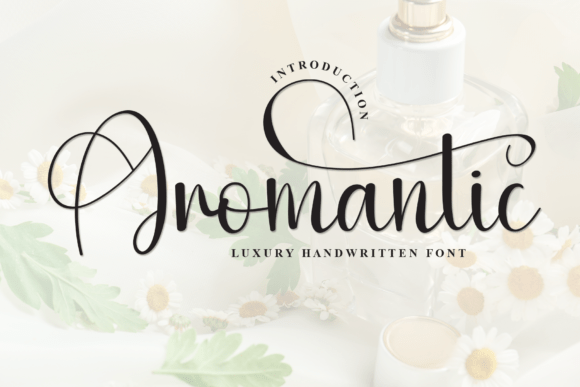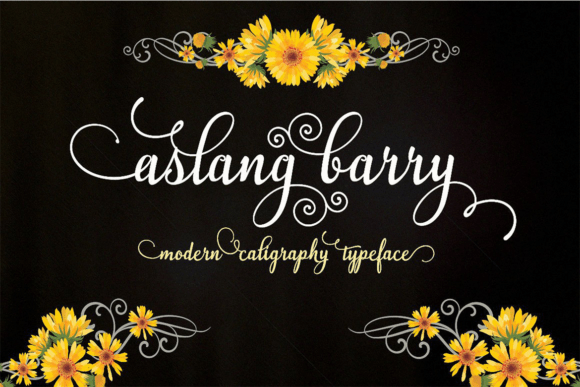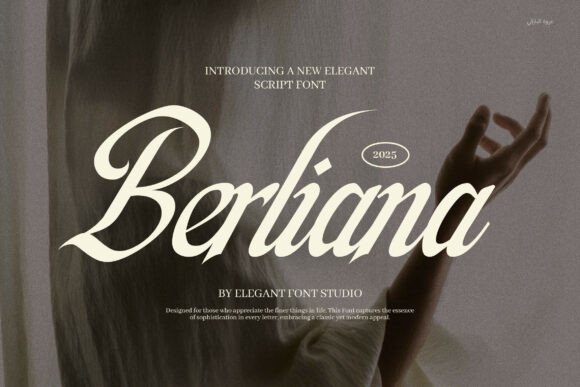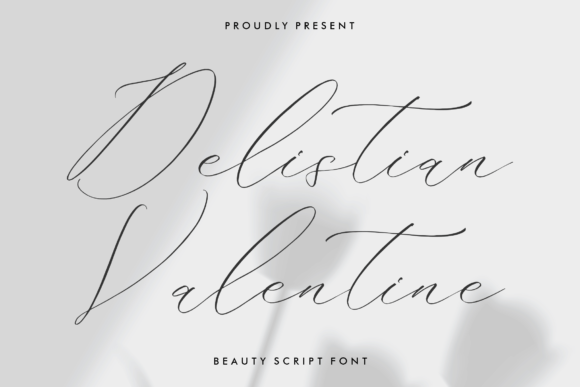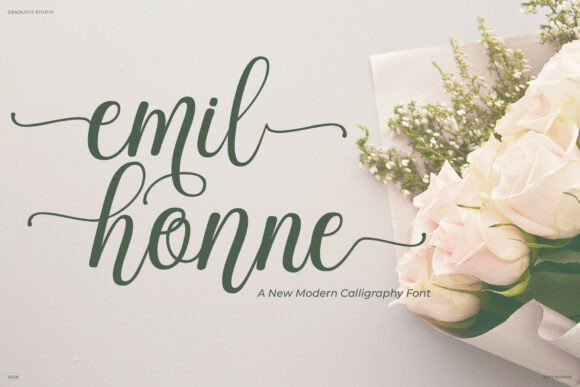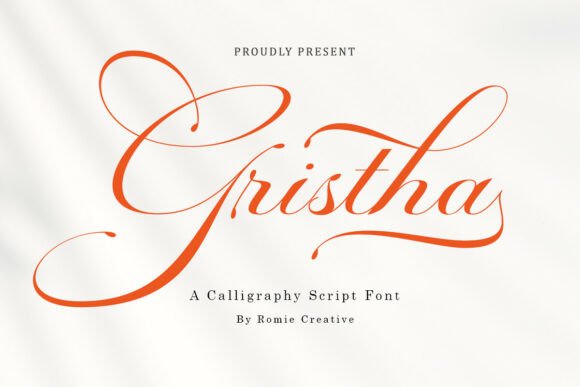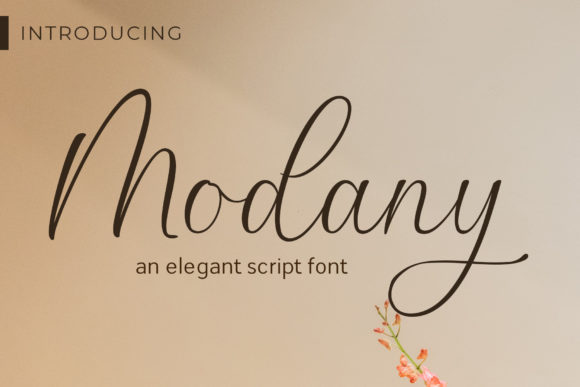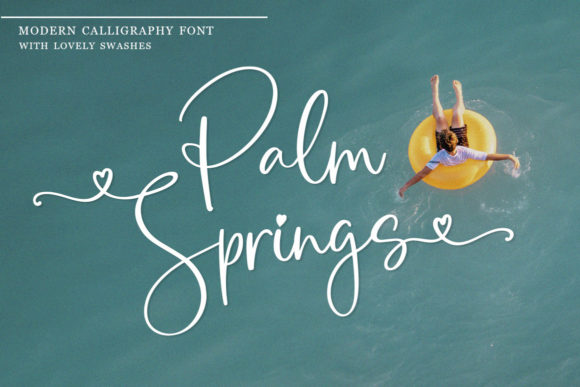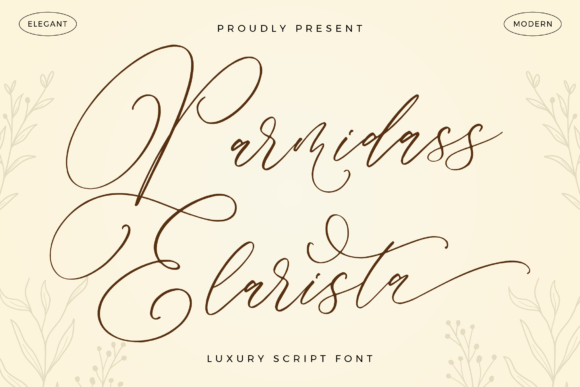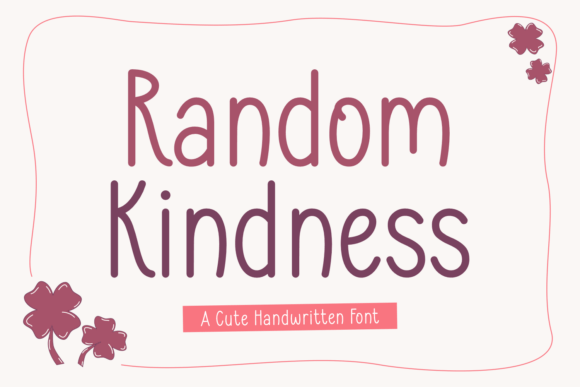
Modern Script Fonts in 2026: 19 Gorgeous Handwritten Styles Worth Buying
If you are new to buying type, scripts are the easiest place to make an expensive-looking mistake. So before the picks, a short primer: here is what separates 19 modern script fonts that read clean and current from the dated ones, plus the errors that trip people up. For context, it helps to know how the script typeface developed in the first place.
What makes modern script fonts feel current
Three things, mostly. Even or only-slightly-contrasted strokes instead of dramatic hairlines; restrained flourishes rather than swashes on every letter; and proportions that sit closer to everyday handwriting than to formal copperplate. Older scripts pile on ornament; modern ones trust the rhythm of the hand and leave space. That is why a monoline script can look more contemporary than a far fancier one.
Common mistakes with script fonts
Almost every script problem comes down to one of these:
• Setting a fine script too small, so the connectors break apart
• Tracking the letters out, which snaps the joins between them
• Using a script for a whole paragraph instead of one short line
• Forgetting to swap in alternates where the same letter repeats
Clean and monoline picks
Even-weight, pared-back scripts that hold up well and read modern. Strong choices for logos and small-format work.
Night Wednesday
Night Wednesday is an expressive script built on smooth, monolinear strokes, meaning the line weight stays fairly even throughout. That consistency gives it a clean, modern look while keeping the flow of handwriting. The mood is calm and a little moody, well suited to fashion, music, or lifestyle branding after something understated. Because the strokes are even, it reads more clearly at smaller sizes than high-contrast scripts. Pair it with a minimal sans and a dark palette, and use it for short headlines and signatures where its steady rhythm shows.
Melorine Script
Melorine Script is a smooth handwritten face with gentle curves and a soft, feminine feel that reads as effortless and natural. It avoids heavy ornamentation, so it suits modern beauty branding, packaging, and warm editorial accents. The relaxed strokes give short phrases a genuine, jotted-by-hand quality. Pair it with a clean sans and a soft palette, keeping the script for names and headlines. Because it stays fairly even in weight, it’s a touch more legible at smaller sizes than the hairline scripts, though larger settings still flatter it most.
Amanah Guru
Amanah Guru is a refined handwritten face that keeps an approachable, natural feel, with delicate strokes that read as genuine rather than overly styled. It sits comfortably between calligraphy and everyday handwriting, which makes it flexible for branding, packaging, and editorial accents. The relaxed rhythm suits a modern label that wants warmth without formality. Pair it with a clean sans for body copy and let the script handle the personal touches. It holds together a little better at smaller sizes than the hairline scripts, though headlines still suit it best.
Aromantic (Iromantic)
Aromantic, labeled Iromantic in its source, is an ultra-light luxury handwritten face built for a minimalist, premium feel. The fine strokes and restrained styling give short phrases a quiet, modern grace rather than heavy ornamentation. It suits high-end beauty branding, sparse editorial layouts, and digital headers where less is more. Because the strokes are slender, set it large and print it cleanly so they hold. Pair it with a minimal sans and plenty of white space, and reserve it for one short, important line.
Friday Calligraphy
Friday Calligraphy is a modern take on calligraphy, built with smooth curves, stylish swashes, and a clean, contemporary finish. It keeps the hand-lettered flow but trims the fussiness, which makes it easy to drop into current branding and social layouts. The swashes give names a graceful endpoint without overwhelming the rest. Pair it with a minimal sans for body copy and let the script carry the headline. It works in a wide range of projects, from logos to quote art, as long as you keep it to short, expressive lines.
Flowing and expressive picks
More movement and personality, still on the modern side of handwriting. Keep these for names, headlines and quote art.
The Mountaine
The Mountaine is a modern script with flowing curves and graceful letterforms that lean polished rather than playful. It reads as confident and current, a good fit for lifestyle brands, headlines, and quote prints. The connectors are smooth and consistent, so short phrases hold together cleanly. As with most scripts, I’d keep it for names and headings and pair it with a simple serif or sans for longer text. Set in a single tone with a little open spacing, it carries a modern, romantic feel without much fuss.
Emilhonne
Emilhonne is a modern calligraphy face that aims for a balance of polish and contemporary flair, with fluid, graceful strokes. It reads as sophisticated but current, a good match for fashion, beauty, and editorial work. The flow is smooth and the detailing restrained, which keeps it from tipping into old-fashioned territory. Pair it with a minimal serif or sans for the supporting text and reserve the script for short, important lines. In a single deep tone with open spacing, it gives a layout a refined, hand-lettered headline.
Romantic (Modern Script)
Romantic font preview
Romantic, in this newer script style, features sweeping ascenders and a delicate, fluid rhythm that reads as soft and current. The long extenders give short phrases an airy grace, so it suits beauty branding, quote prints, and invitation accents. Those ascenders need room, so keep line spacing open and reserve it for headlines rather than dense text. Pair it with a clean sans for contrast and a muted palette to play up its gentle mood. Set one short line large and let the sweeping strokes carry the page.
Gristha
Gristha font preview
Gristha is a fluid modern calligraphy script with a luxurious, confident flow and graceful, pen-drawn curves. It feels expressive without losing control, which makes it a strong headline face for branding, packaging, and editorial layouts. The smooth connectors suit short phrases and names, where the rhythm can be seen at a glance. Pair it with a minimal serif or sans for the details and keep the script as the accent. In a single rich tone with generous spacing, it reads as both artistic and grown-up.
Monadila
Monadila font preview
Monadila is a modern calligraphy face with delicate thin strokes and graceful, flowing swashes, blending classic polish with a current edge. The fine lines give it a refined, almost editorial quality, while the swashes add a hand-lettered finish to names. Because the strokes are slender, it prefers larger sizes and clean printing. Pair it with a clean sans for body copy and reserve the script for short headlines. Set in a soft palette with open spacing, it suits beauty branding, stationery, and quote prints with a modern romantic feel.
Berlina
Berlina font preview
Berlina is a luxurious, high-class script designed to bring polish and charm to branding and stationery. The strokes flow with a confident, slightly formal rhythm that reads as upscale rather than casual. It suits boutique logos, perfume packaging, and invitation headlines where a refined hand is the goal. As with most fine scripts, keep it to names and short lines and pair it with a clean serif or sans for the supporting text. In a single deep tone with open spacing, it gives a layout a grown-up, hand-lettered headline.
Aslang Barry
Aslang Barry font preview
Aslang Barry is a modern calligraphy typeface with a refined, graceful character and a smooth, flowing hand. It reads as sophisticated and current, a good fit for fashion, beauty, and lifestyle branding. The connectors are clean and consistent, so short phrases hold together well and names get a polished finish. Pair it with a minimal sans for body copy and reserve the script for headlines and signatures. In a single tone with a little extra spacing, it gives a layout a hand-lettered accent without feeling overdone.
Random Kindness
Random Kindness font preview
Random Kindness is a handwritten face that pairs sweet, casual charm with a touch of luxury, reading as warm but considered. The relaxed strokes feel genuine rather than overly styled, which suits modern branding, packaging, and friendly editorial accents. It sits on the approachable side of this list, so cheerful, short lines work better than formal wording. Pair it with a clean sans to match its easygoing tone, keeping the script for names and headlines. A soft palette and open spacing let its natural rhythm come through clearly.
Rolland Honey
Rolland Honey font preview
Rolland Honey is a modern calligraphy face that blends classic polish with a contemporary touch, with smooth, flowing strokes. It reads as warm and current, a comfortable fit for lifestyle brands, packaging, and quote prints. The connectors are clean and the detailing restrained, which keeps it modern rather than ornate. Pair it with a minimal serif or sans for the supporting text and reserve the script for short headlines and names. In a soft, warm palette with open spacing, it gives a layout a friendly, hand-lettered headline.
Parmidass Elarista
Parmidass Elarista font preview
Parmidass Elarista is an expressive handwritten face with a wide range of uses, from greeting cards to headlines and branding. The strokes have a relaxed, natural rhythm that reads as genuine, with enough flair to carry a short phrase on its own. Its flexibility is the appeal, since it moves easily between playful and polished depending on the layout. Pair it with a clean sans for body copy and reserve the script for the lines that matter most. Keep spacing open so the connectors and extenders have room to read.
Delistian Valentine
Delistian Valentine font preview
Delistian Valentine is a charming script-and-handwritten face with delicate strokes and lovingly drawn curves. The warmth in its rhythm makes it a natural for cards, gift tags, and romantic branding, though it works for any soft, friendly project. The hand-drawn quality is the point, so keep it to short phrases and let a plain face carry longer text. Pair it with a simple serif and a warm palette for a tender, cohesive look. A little extra line spacing keeps its loops and connectors from crowding each other.
Rathallod
Rathallod font preview
Rathallod is a modern, stylish script with smooth, flowing curves and delicate hairlines that give it a graceful, calligraphic feel. The fine detailing reads as refined and current, suiting fashion, beauty, and editorial work. Because the hairlines are slender, it prefers larger sizes and clean printing where they stay crisp. Pair it with a minimal sans for the details and reserve the script for short headlines and names. In a single tone with open spacing, it gives a layout a hand-lettered accent without much else on the page.
Palm Springs
Palm Springs font preview
Palm Springs is a romantic modern calligraphy face with letters that dance lightly along the baseline and a casual yet polished touch. The relaxed rhythm gives it an easygoing, sunny personality that suits lifestyle branding, packaging, and quote art. It leans friendly, so short, warm lines work better than formal wording. Pair it with a clean sans to match its modern feel, keeping the script for names and headlines. A soft, bright palette and open spacing let its lively rhythm read clearly without tangling.
Modany
Modany font preview
Modany is a sweet, cursive handwritten face with a gentle, joyful character that reads as warm and approachable. The relaxed strokes feel genuine rather than styled, which suits cards, soft branding, and friendly editorial accents. It sits on the casual side of this list, so cheerful short lines flatter it most. Pair it with a rounded sans to match its tone, or a light serif for a little more polish, and keep the script for headlines and names. Open line spacing lets its loops move freely and stay legible.
My quick rule for using any of these in a logo: pick one short word for the script, set everything else in a plain sans, size it up until the connectors read cleanly, and keep it to one color so the handwritten effect stays believable. If you want the more ornate, traditional end instead, that is the romantic calligraphy fonts guide, and for name marks specifically, elegant signature fonts.
Quick answers
What is a modern script font?
It is a typeface that mimics flowing handwriting but with cleaner, more consistent strokes than traditional calligraphy, which makes it suit current branding and digital layouts.
Do modern script fonts work for body text?
Not really. Scripts are built for short, expressive lines, so paragraphs are better set in a plain serif or sans with the script reserved for headlines.
How do I keep a script font legible?
Set it larger than you think, avoid tight letter spacing, and choose a monoline script over a high-contrast one when you need it to hold at small sizes.